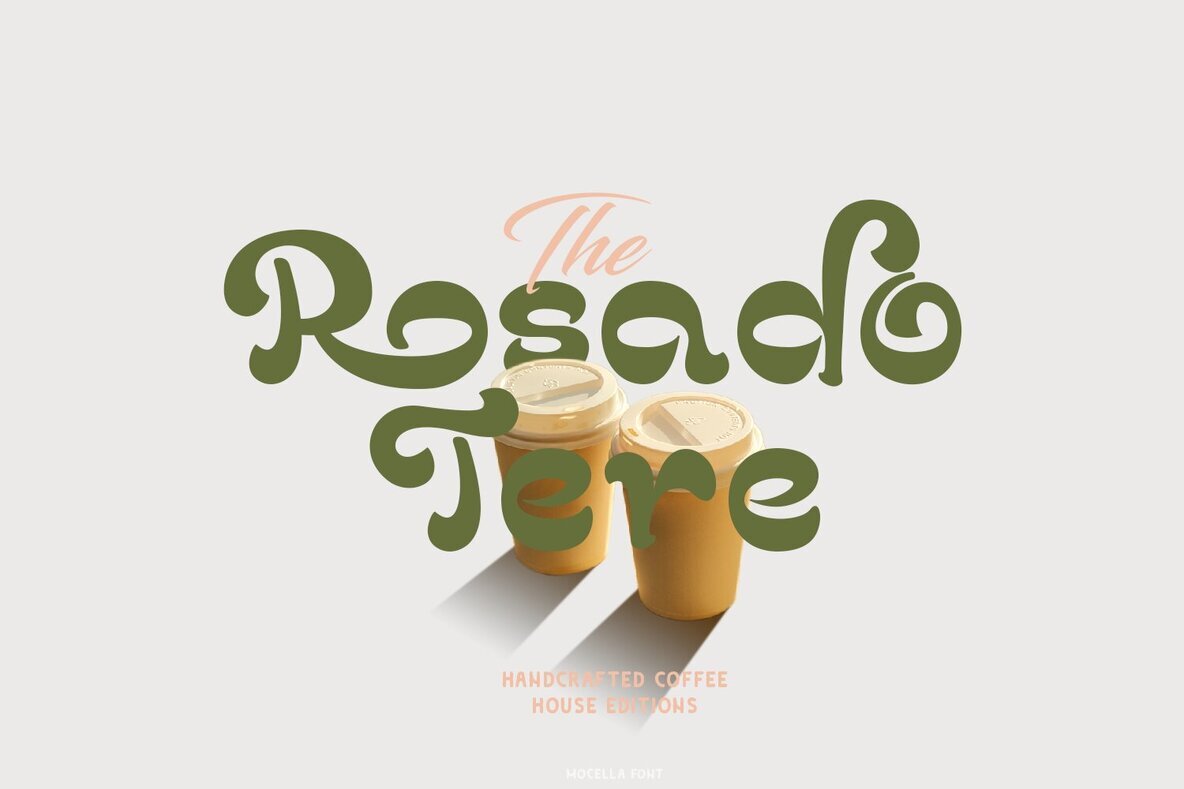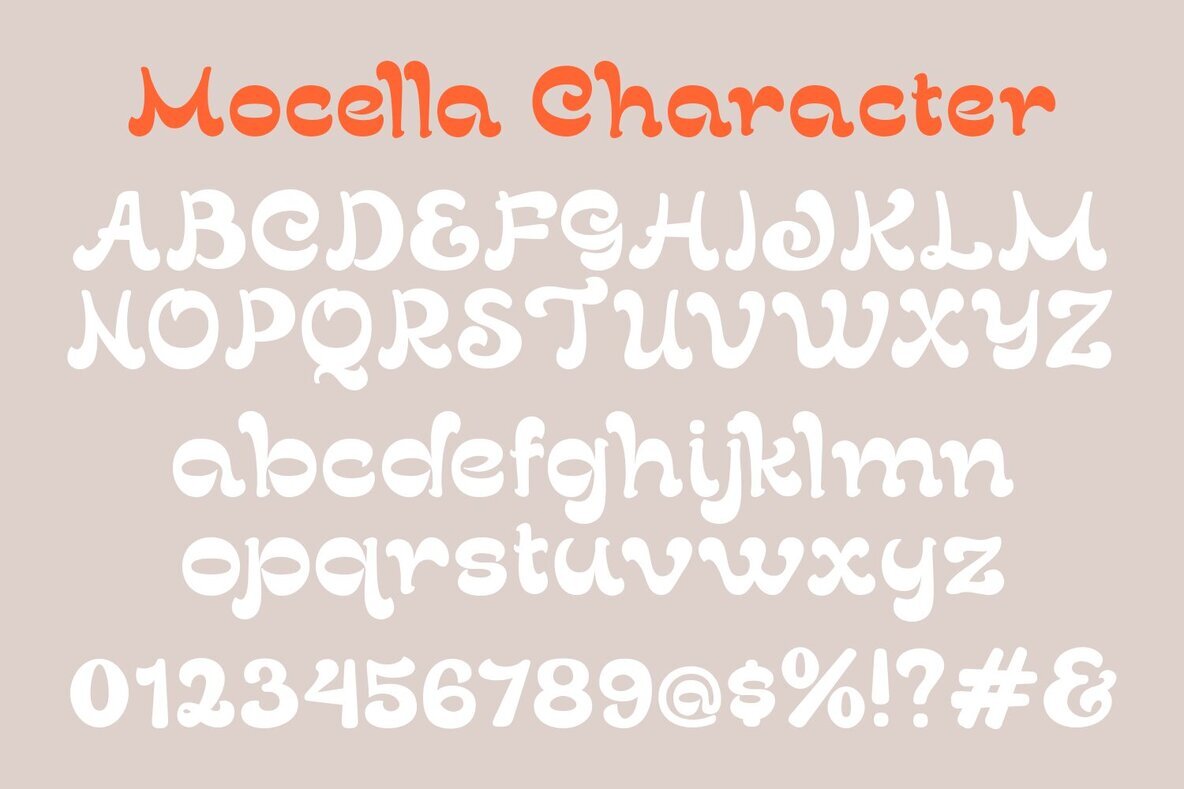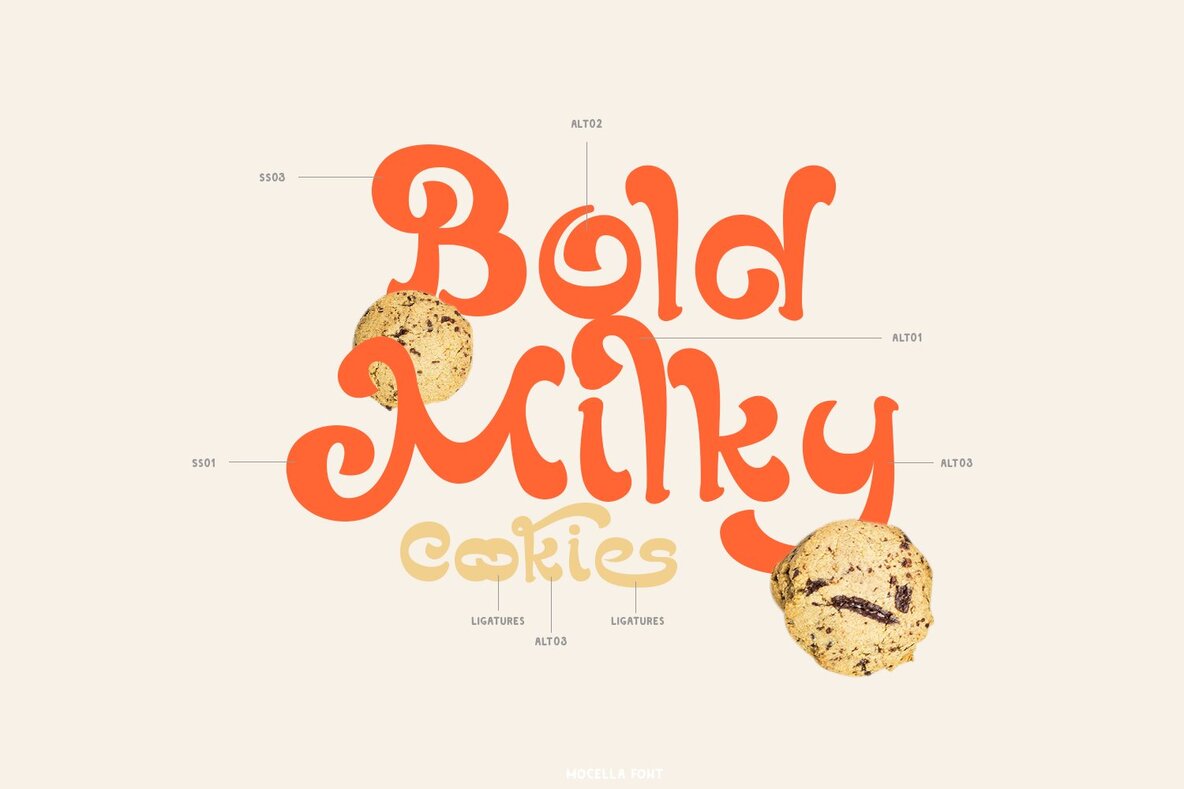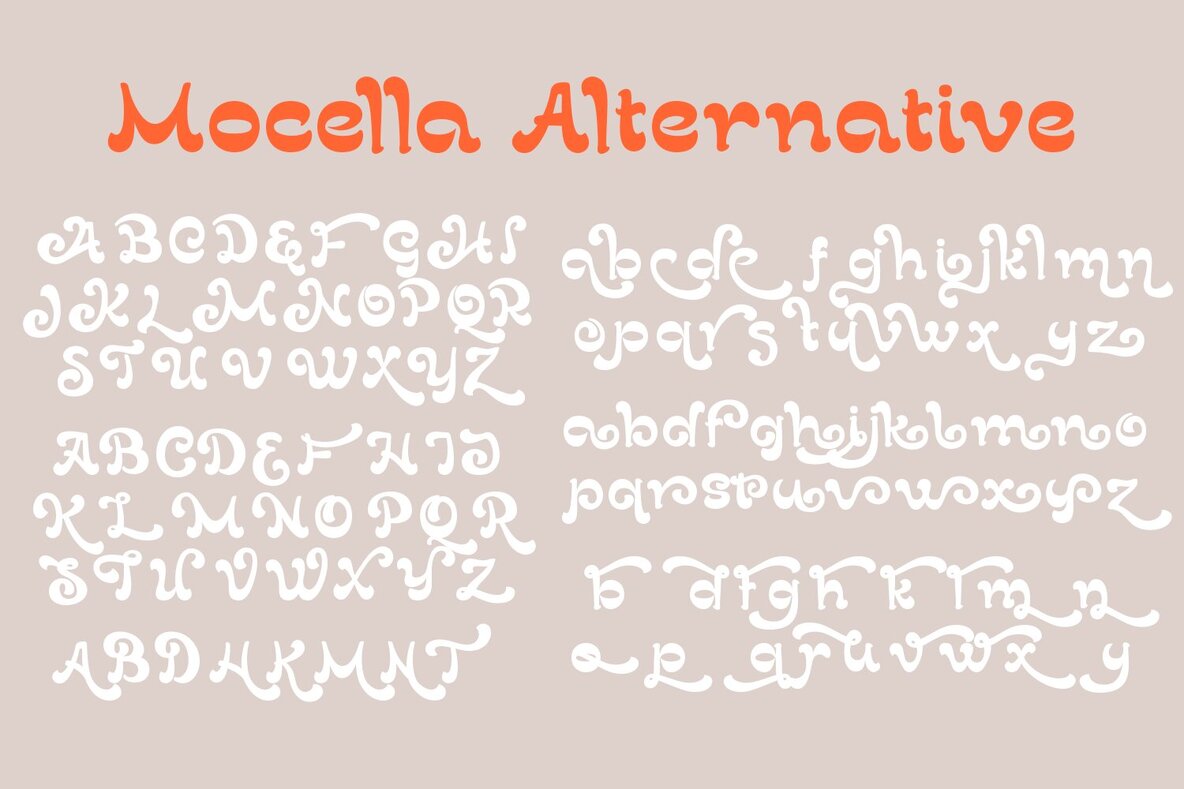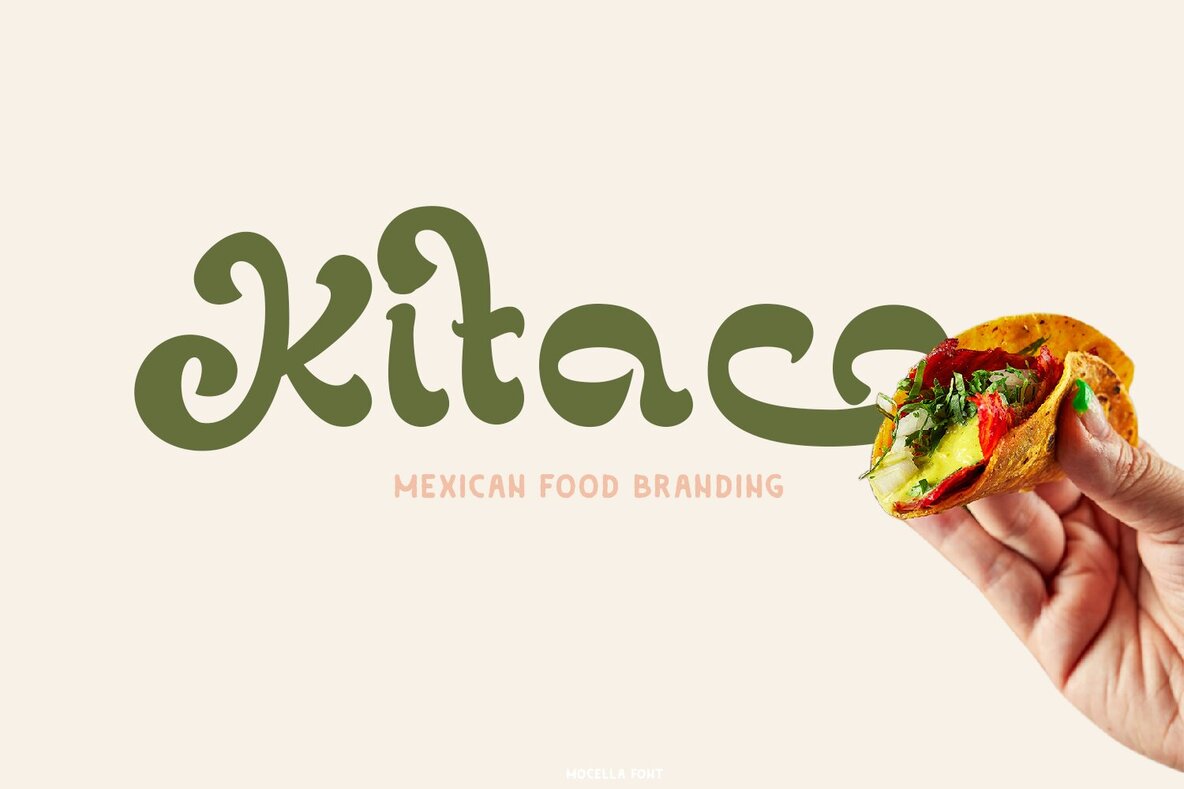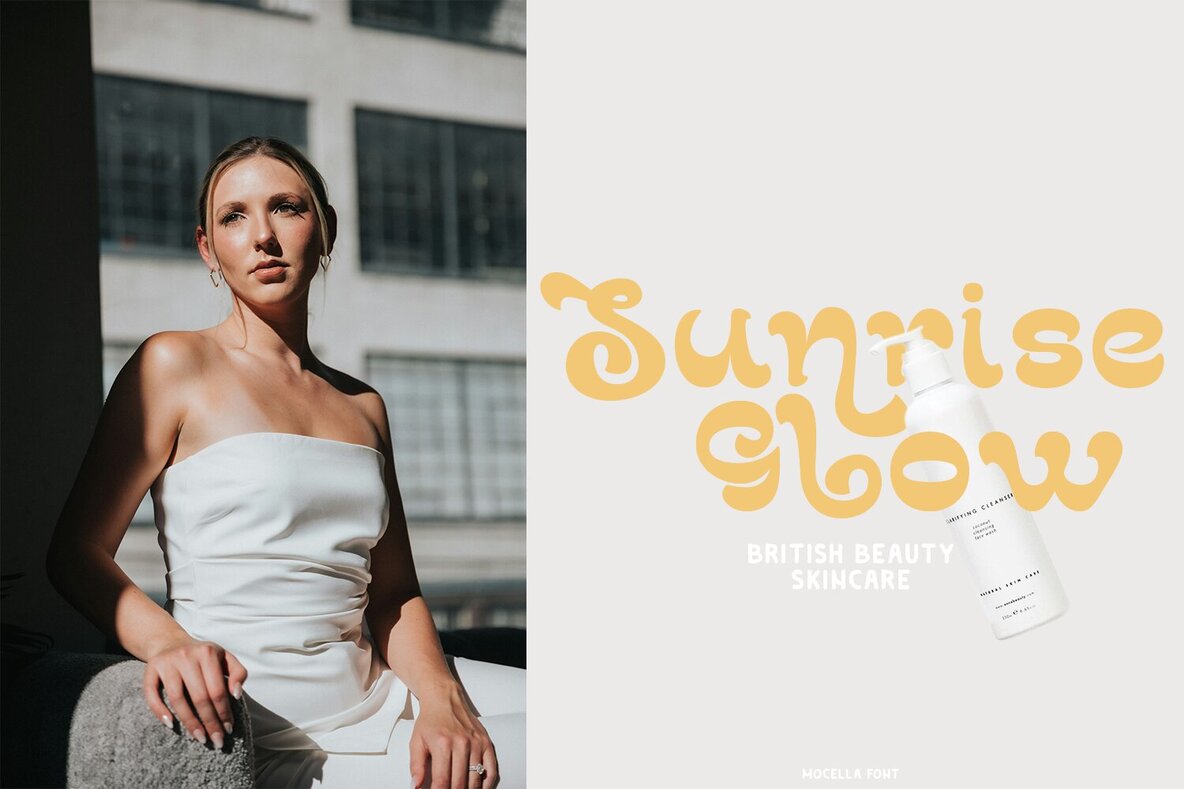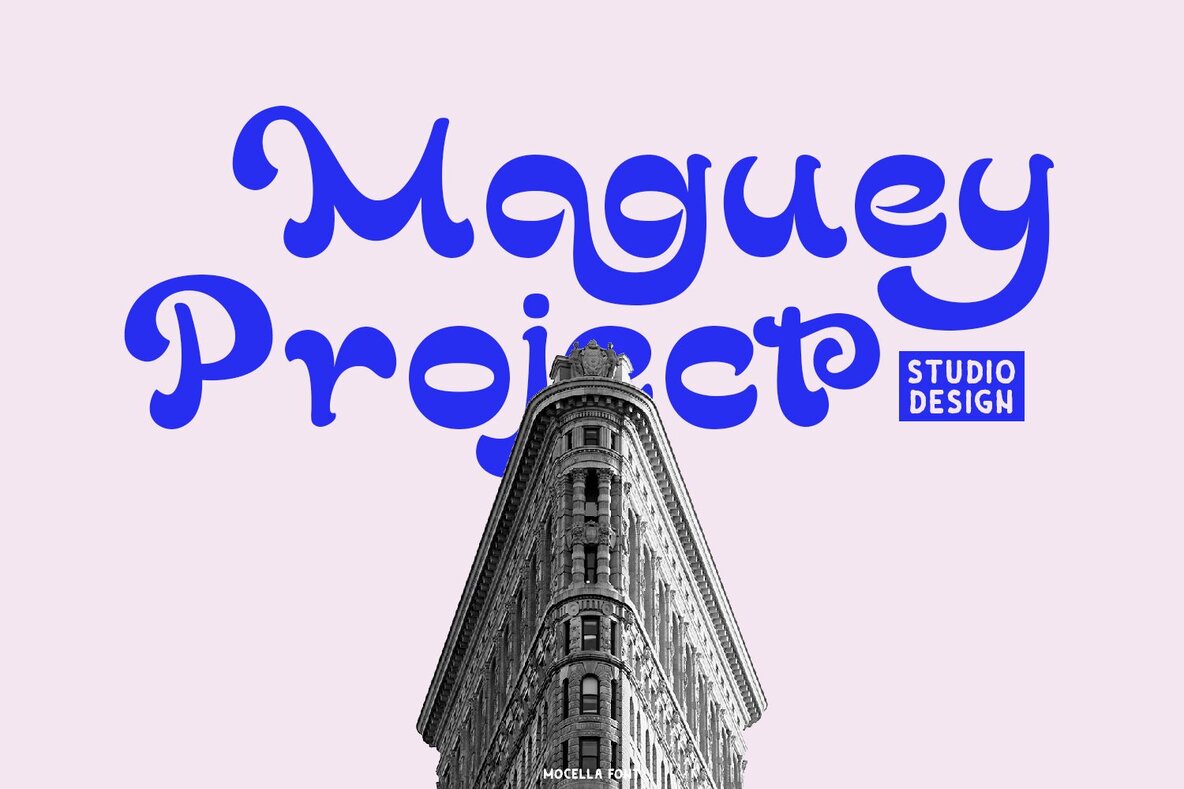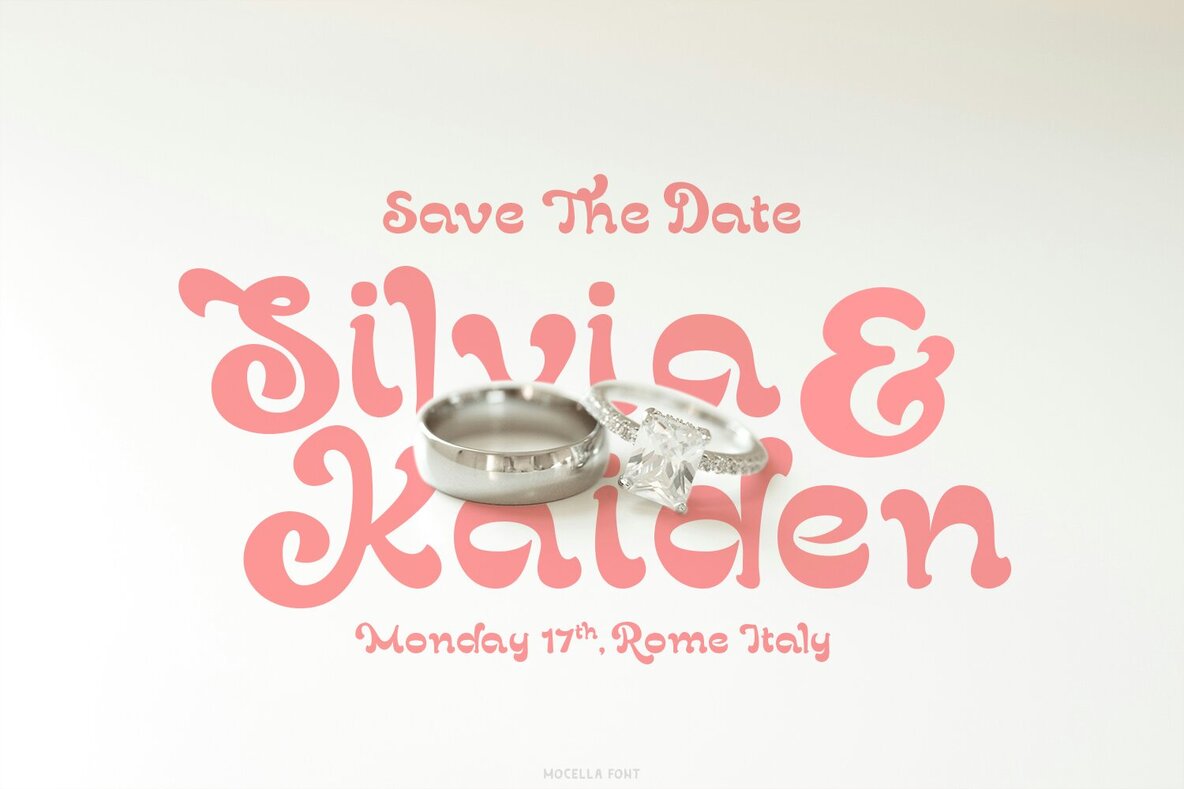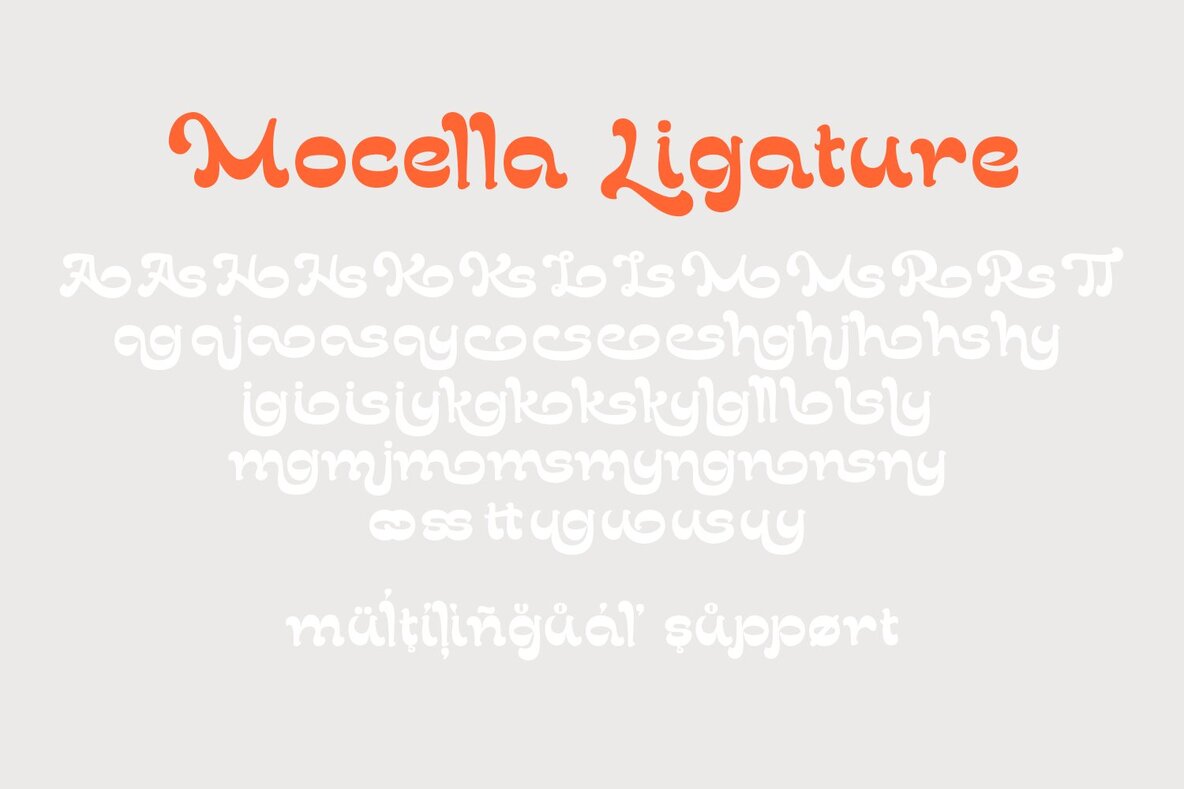
Mocella Font
Mocella
Mocella is a retro-inspired font reminiscent of the 1980s, designed with a classic and refined aesthetic. Its versatile nature allows you to explore various typographic compositions, ensuring a rhythm that promotes comfortable reading. This makes Mocella an ideal choice for a variety of creative projects.
Perfectly suited for logotypes, stickers, greeting and wedding cards, and packaging designs, Mocella adds a nostalgic touch to headlines and brand identities. It also enhances the visual appeal of t-shirts, posters, magazines, and books. Additionally, it works beautifully in digital spaces like Instagram and websites. Immerse your designs in the charm and character of the past with Mocella.